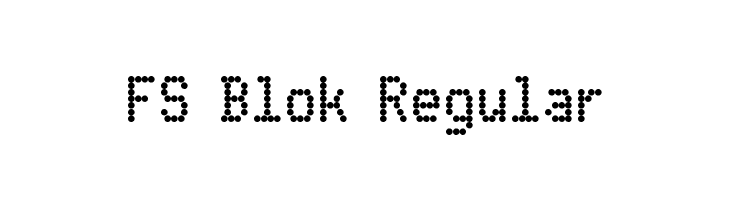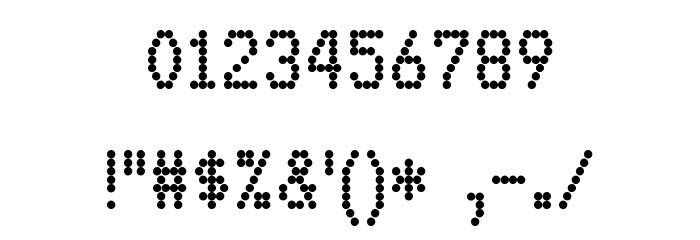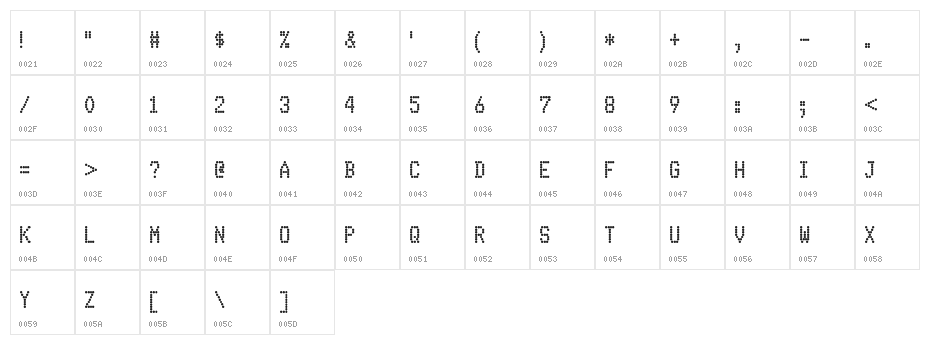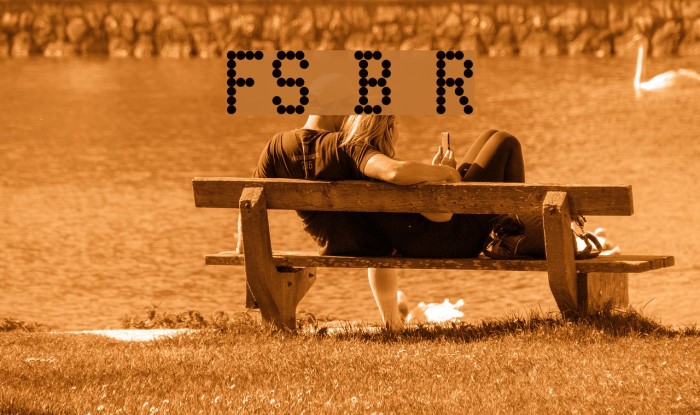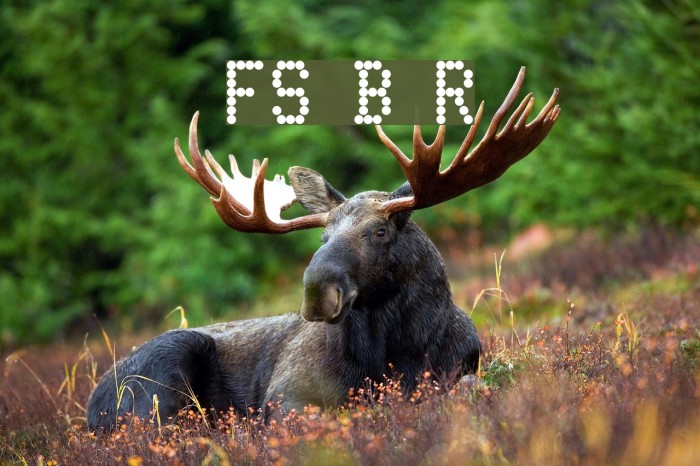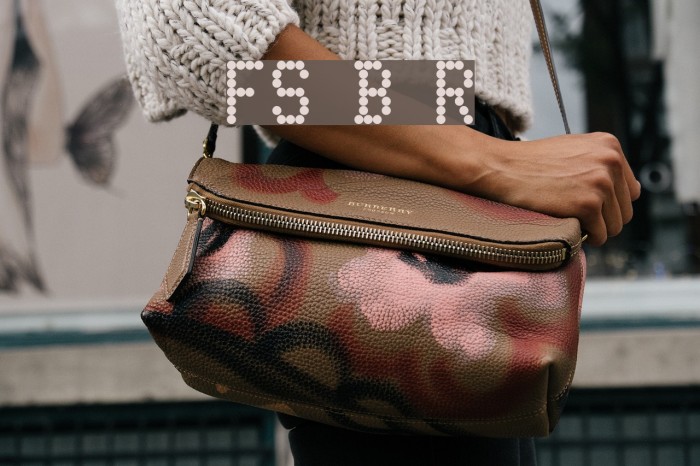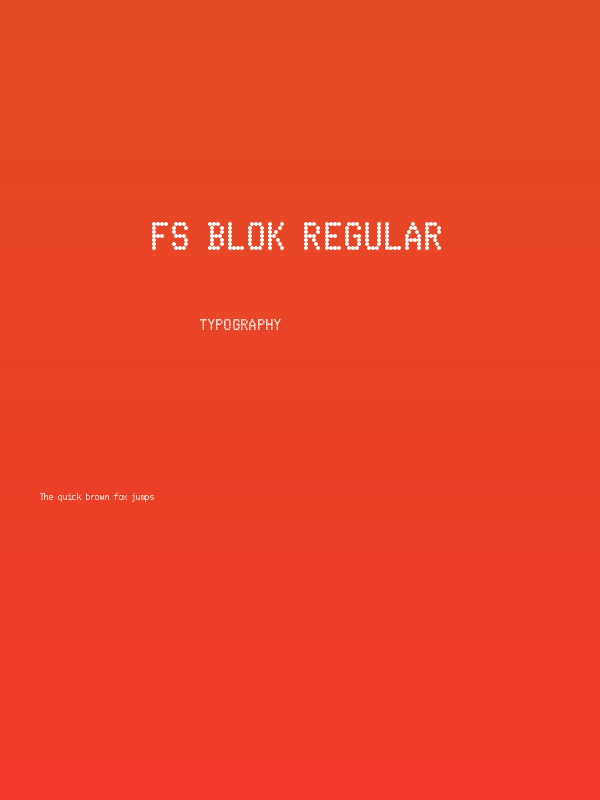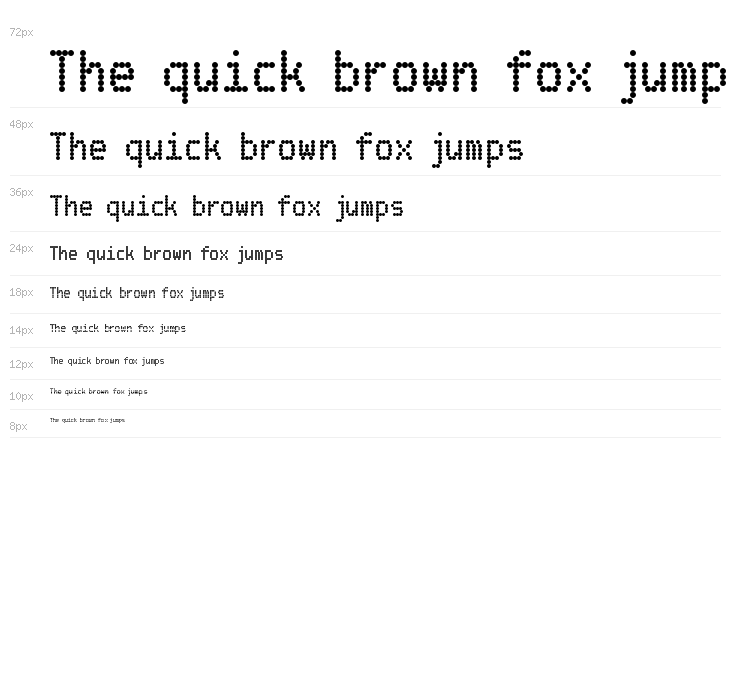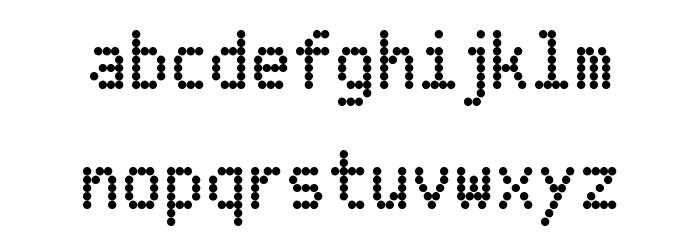
FS Blok Regular Font
FS Blok Regular Description
This font features a unique design composed entirely of small, evenly spaced dots forming each character. The geometric arrangement gives it a digital, modern feel reminiscent of LED displays or dot matrix printers. Each letter and number is clearly defined, maintaining legibility despite the unconventional style. The uniformity of the dots creates a consistent texture across all characters, making it visually appealing for creative projects. The font includes a full set of uppercase and lowercase letters, numbers, and a selection of special characters, all adhering to the same dotted pattern.
| Use Case | Headlines, Logos, Digital displays |
| Proposed Projects | Ideal for digital displays, tech-themed designs, posters, and creative branding projects. |